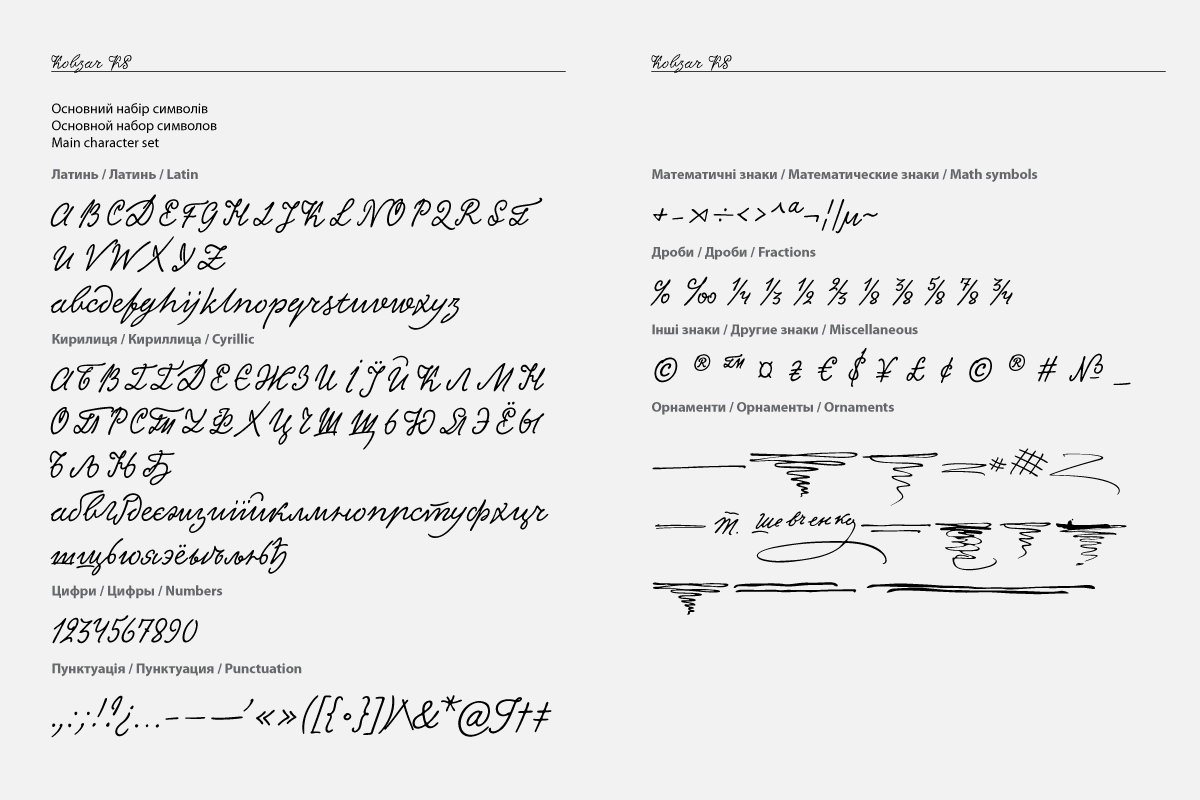
Free font based on the handwriting of Taras Shnvchenko, the Ukrainian poet, artist and philosopher.
Kobzar KS contains all the necessary elements of the modern digital design. It has Latin and Cyrillic letters,
supporting about 100 languages. It contains its own numeric symbols, punctuation and mathematical signs,
and fractions.
For the most demanding users, there are ligatures and ornaments integrated into the font, while some letters
boast several different forms. Resembling authentic handwriting, the font evokes a sensation of belonging to the national heritage and a certain historical epoch.
To create a font, its authors digitized handwritten texts by Shevchenko. While the Latin letters were actually a
designers’ invention – unfortunately, Shevchenko didn’t live to see the age of globalization and bilingualism. The font also contains peculiar features of Shevchenko’s hand, such as elongated strokes in separate letters at the word ends.
The designers themselves called their work on the Latin letters, ligatures and other cosmetic nuances a creative experiment. To experience the font’s functionality at its fullest we recommend an OTF (OpenType Font) format font file.
Designers Dmitry Rastvortsev, Henadij Zarechnjuk and Lukyan Turetsky in process.
In celebration of the 200th birthday of Taras Shevchenko, Ukraine’s national telecommunications service provider Kyivstar presents Ukrainians with the unique font Kobzar KS, replicating handwriting of the famous artist and writer.
Story behind the font’s creation takes us to the National Taras Shevchenko Museum, where a group of researchers from Lviv had accidentally came across a facsimile edition of a handwritten collection of poems ‘Three Years’, or ‘Tri Lita’ in Ukrainian. That was a unique book with poet’s handwriting living its own life, courageously dancing on each of the manuscript’s pages. Leaving it on paper would have been a crime. Thus, teaming up with Lviv designers, Kyivstar set on a journey to release poet’s handwriting and create a unique font that would look exactly like it.
A lot of effort has been put into creating a font that would live up to today’s technical requirement, while at the same time remaining as faithful to Kobzar’s authentic handwriting.
The font supports over 100 languages. Apart from Cyrillic script, it contains letters of a Latin alphabet, resulting in diverse creative and communication possibilities.
KobzarKS is very easy and expressive at the same time. Its symbols fit smoothly into the line, creating a word. Each word makes a sentence, while each sentence
is a part of soul, an embodiment of Ukrainian life and traditions contained at Kobzar’s handwriting. This font is a key to a cultural code opening up a window to Shevchenko’s mind, his genius, and his creative legacy.